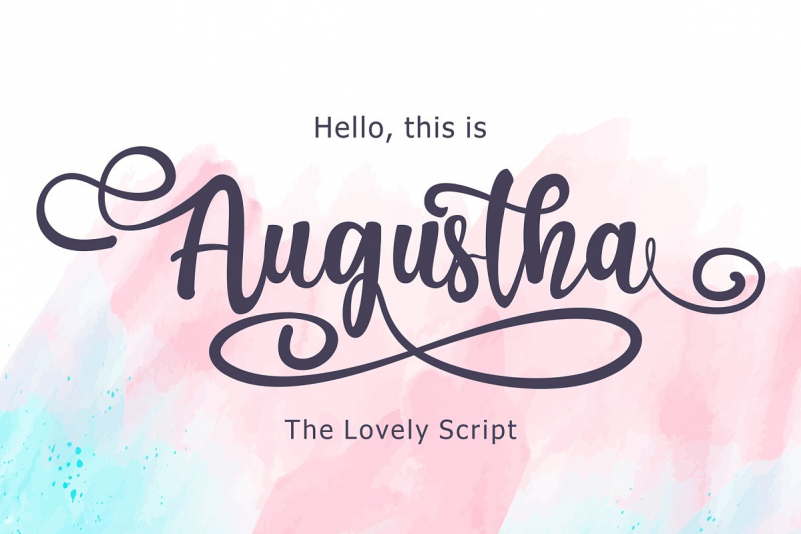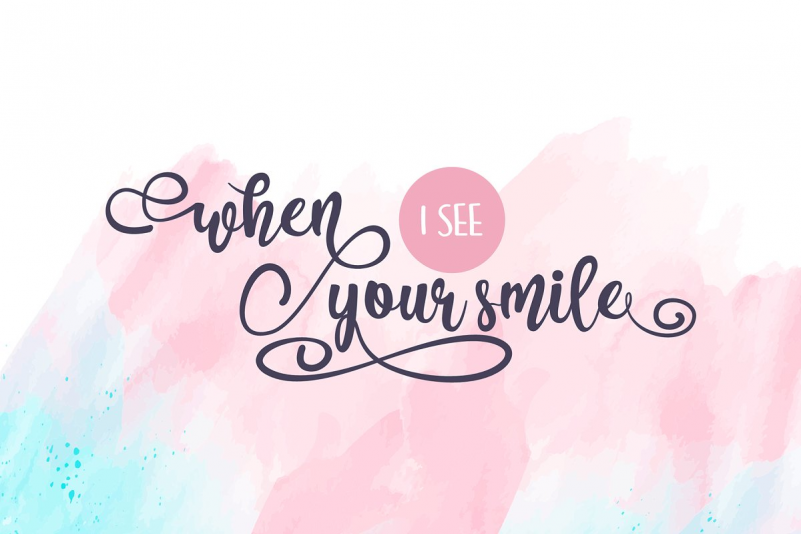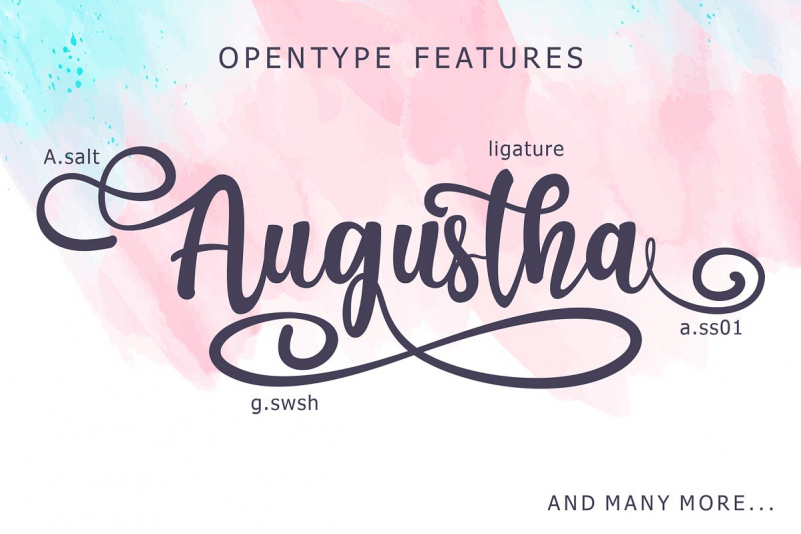
Augustha Font
Augustha is a lovely script font. It has a striking and elegant style and is perfect for creating original designs. Augustha is a really great font for a logo, clothing, wedding invitation, poster, and many others.